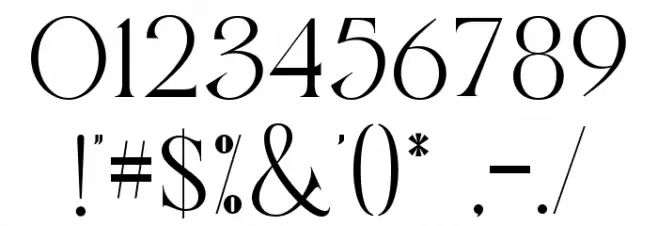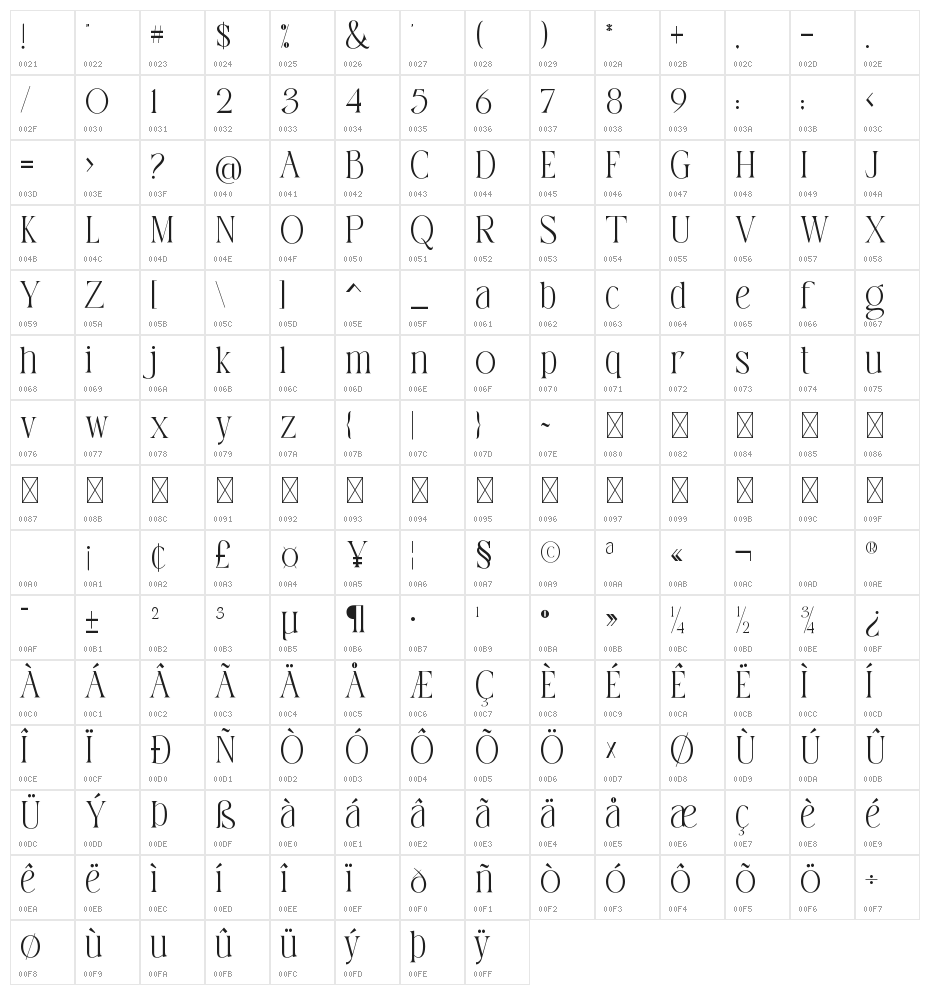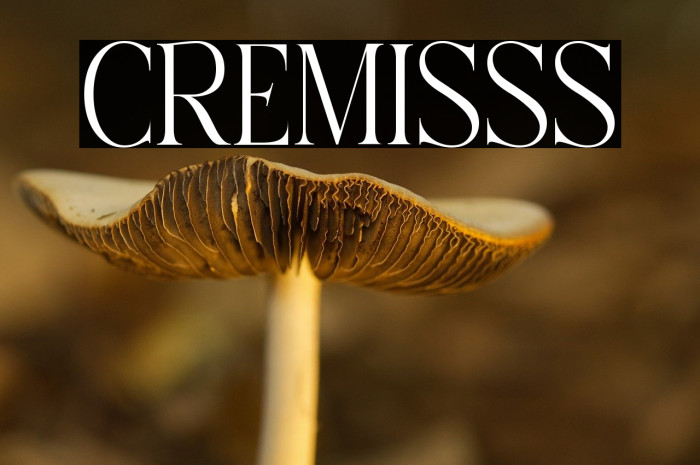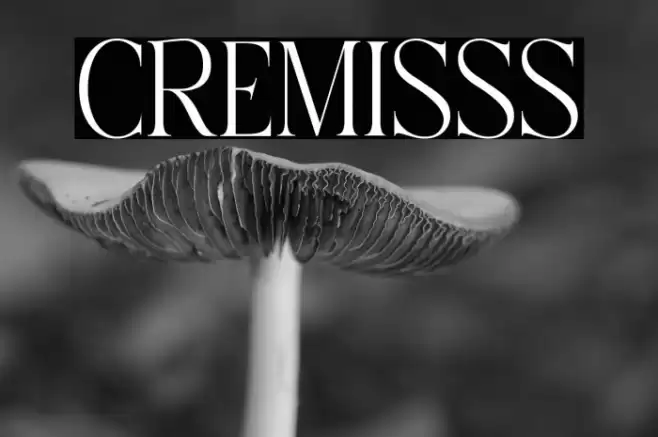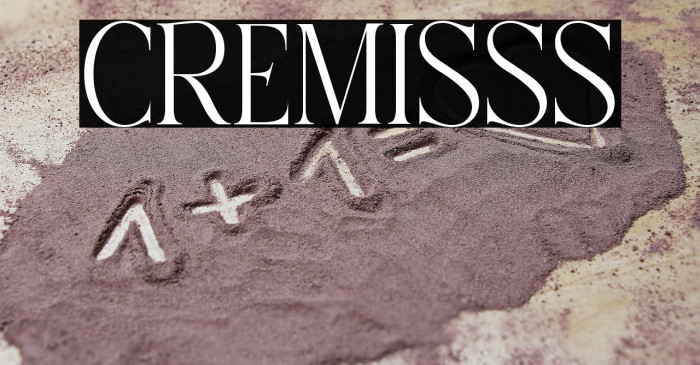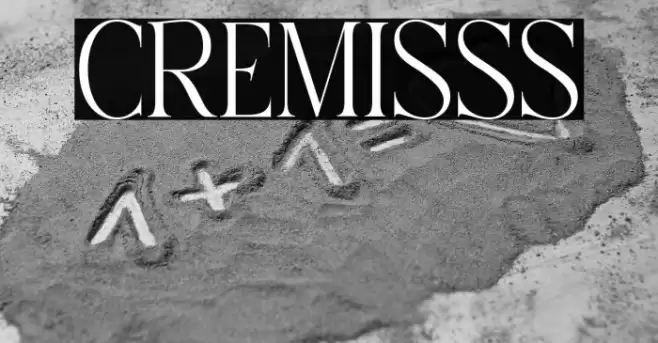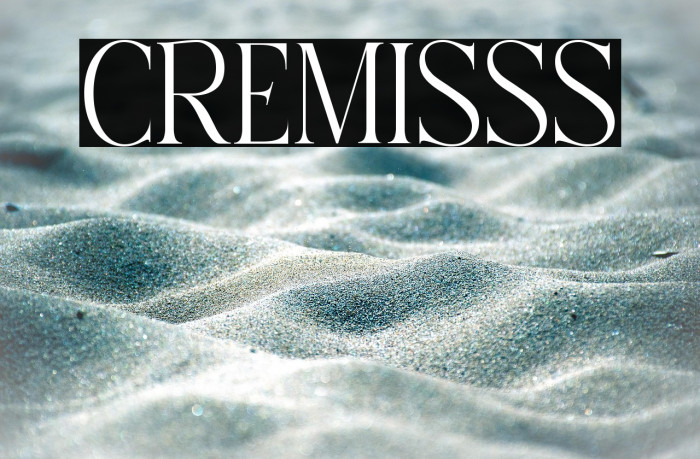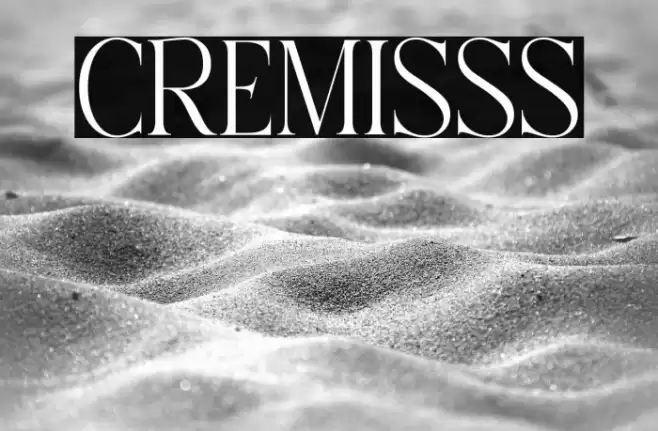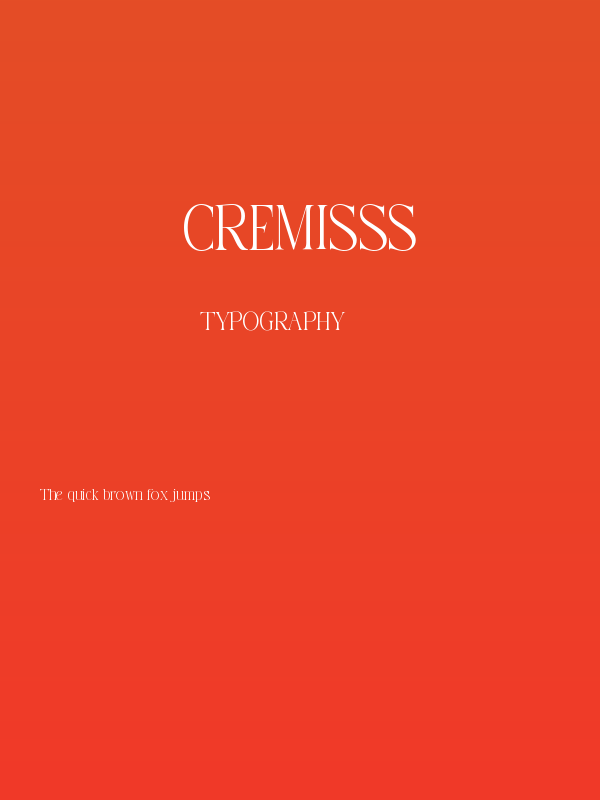
CREMISSS Font
CREMISSS Description
This font features a classic serif design with elegant, elongated strokes and a high contrast between thick and thin lines. The uppercase letters are tall and stately, while the lowercase letters maintain a graceful flow, making it suitable for both formal and artistic applications. The numerals are distinct and easy to read, and the special characters are designed with a consistent style that complements the overall aesthetic. The font's sophisticated appearance makes it ideal for projects that require a touch of elegance and tradition.
| Proposed Projects | Ideal for wedding invitations, luxury branding, editorial design, and formal documents. |